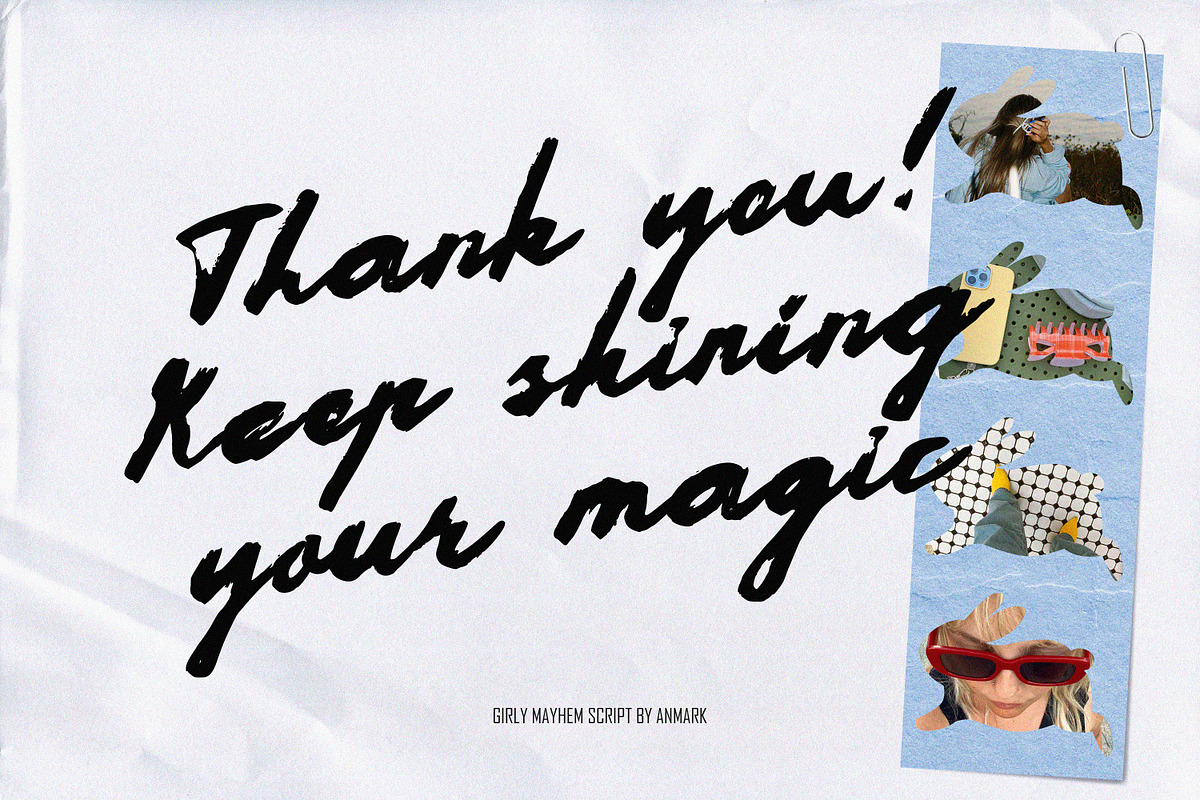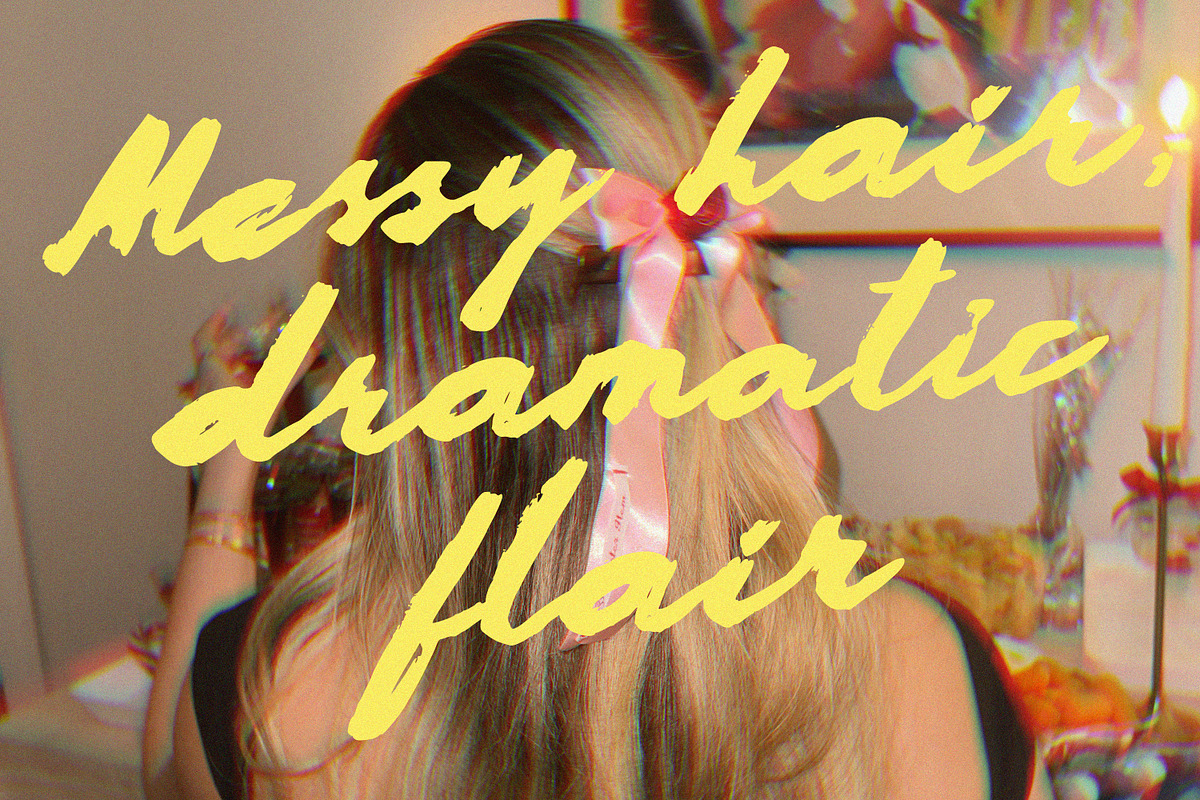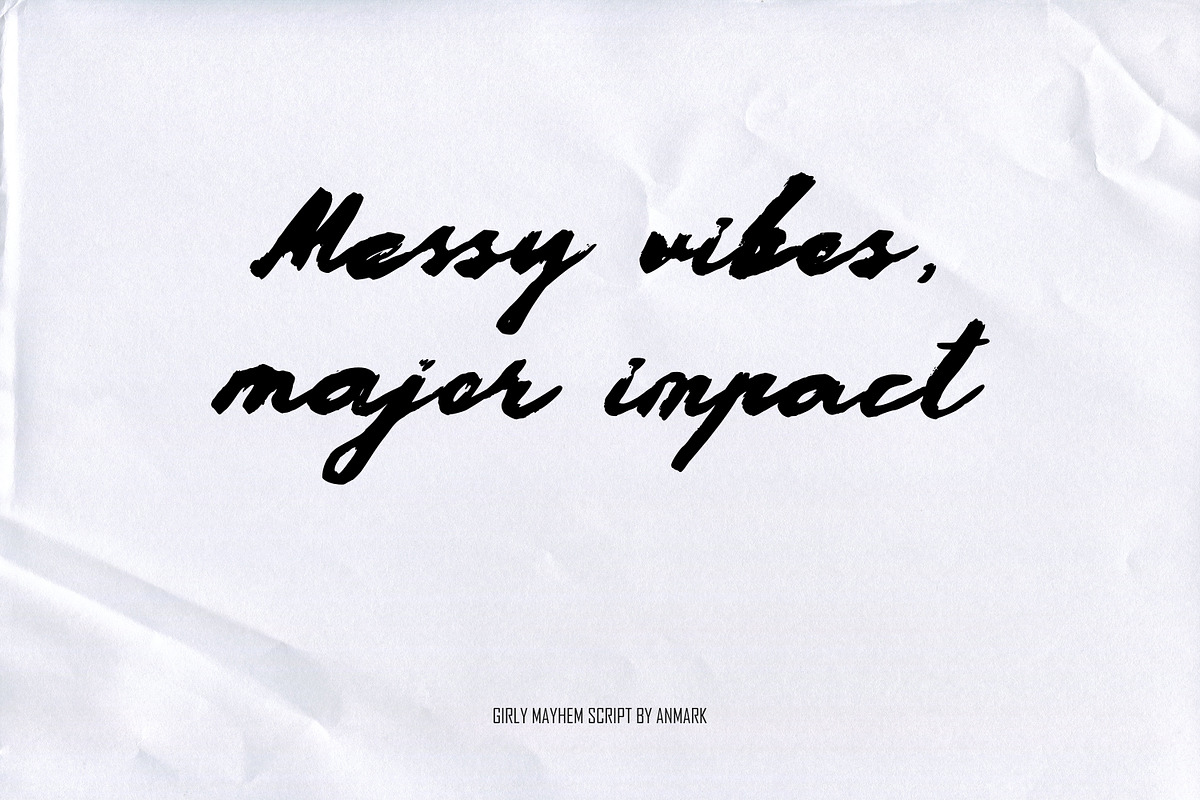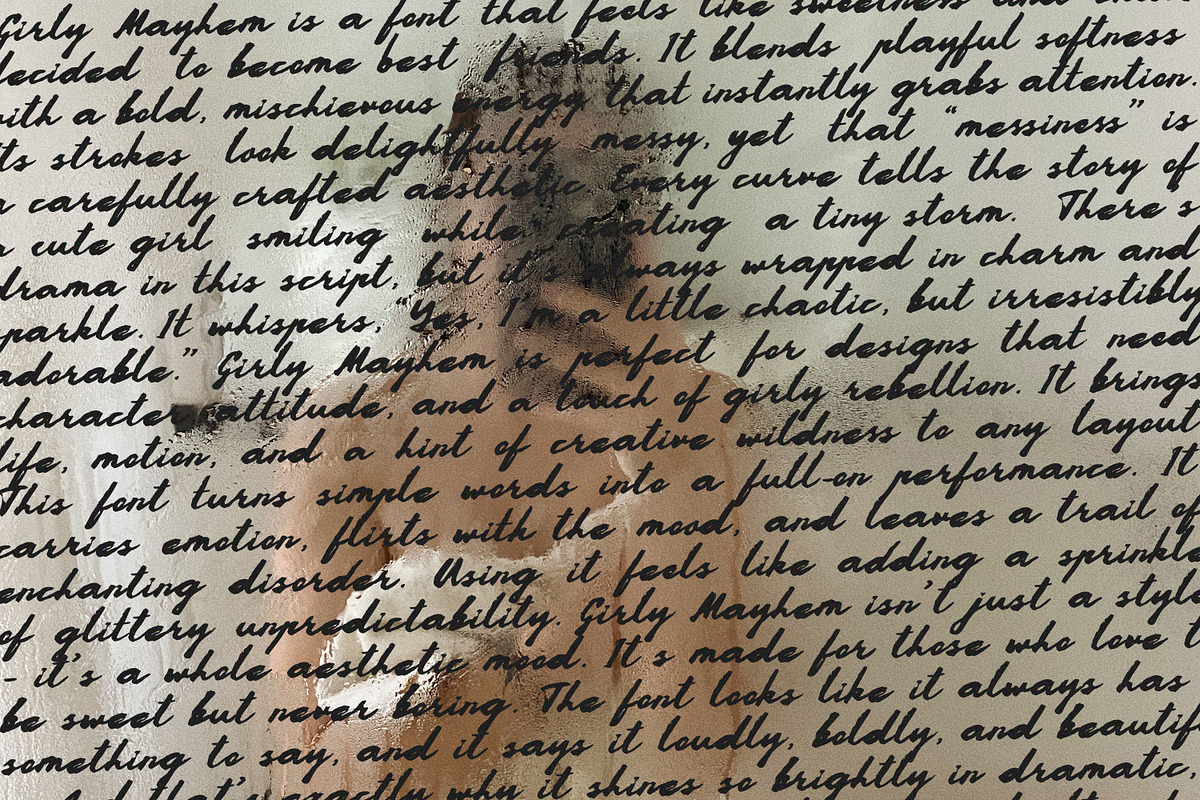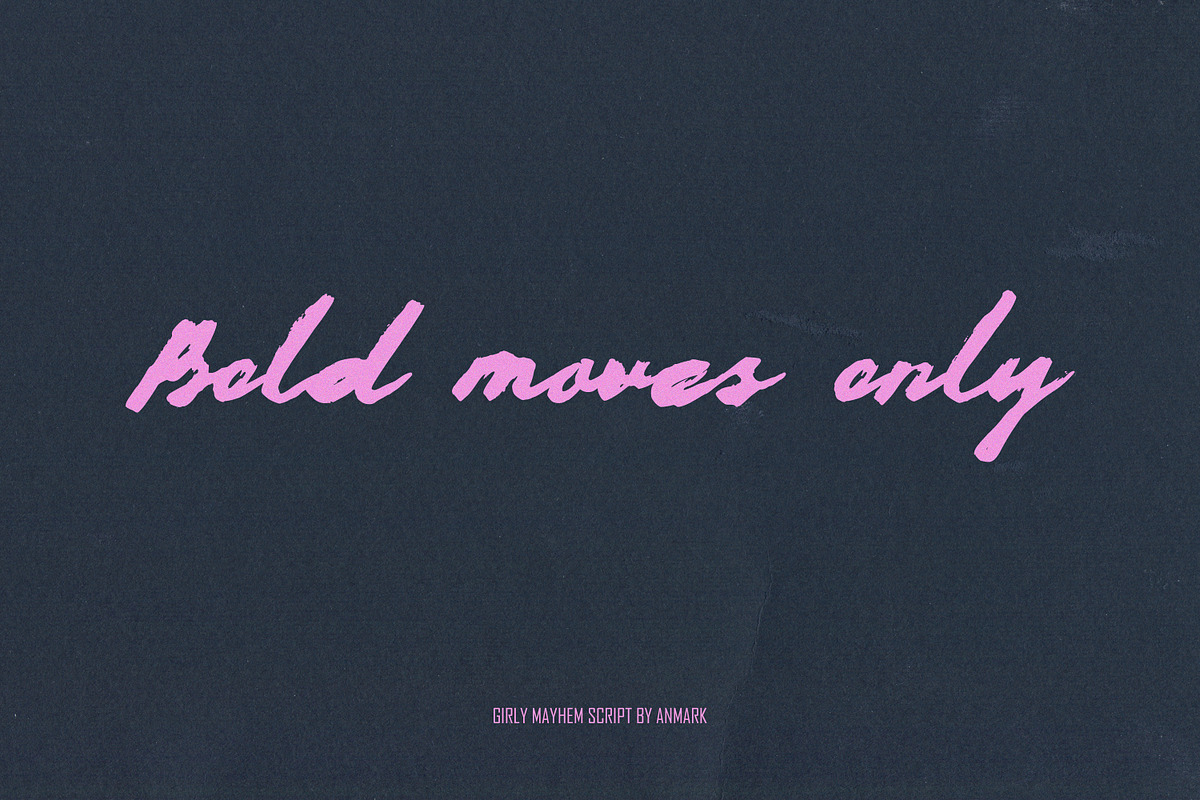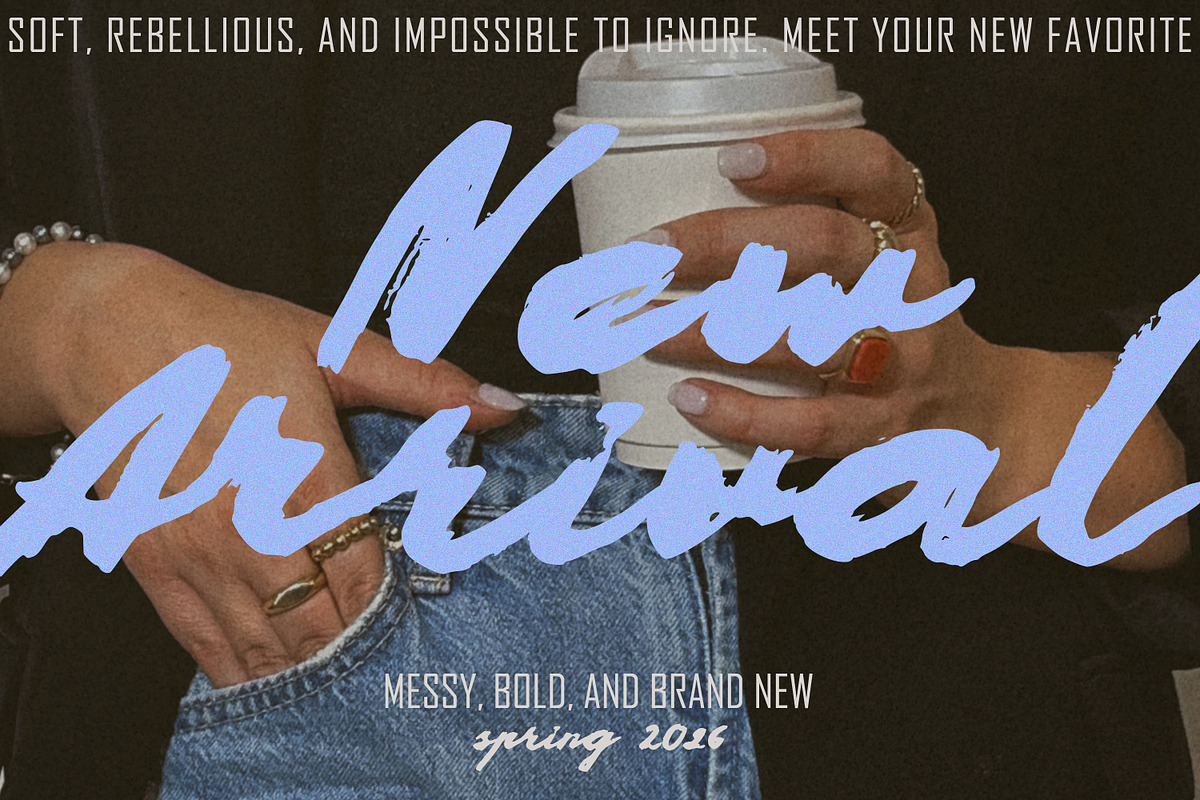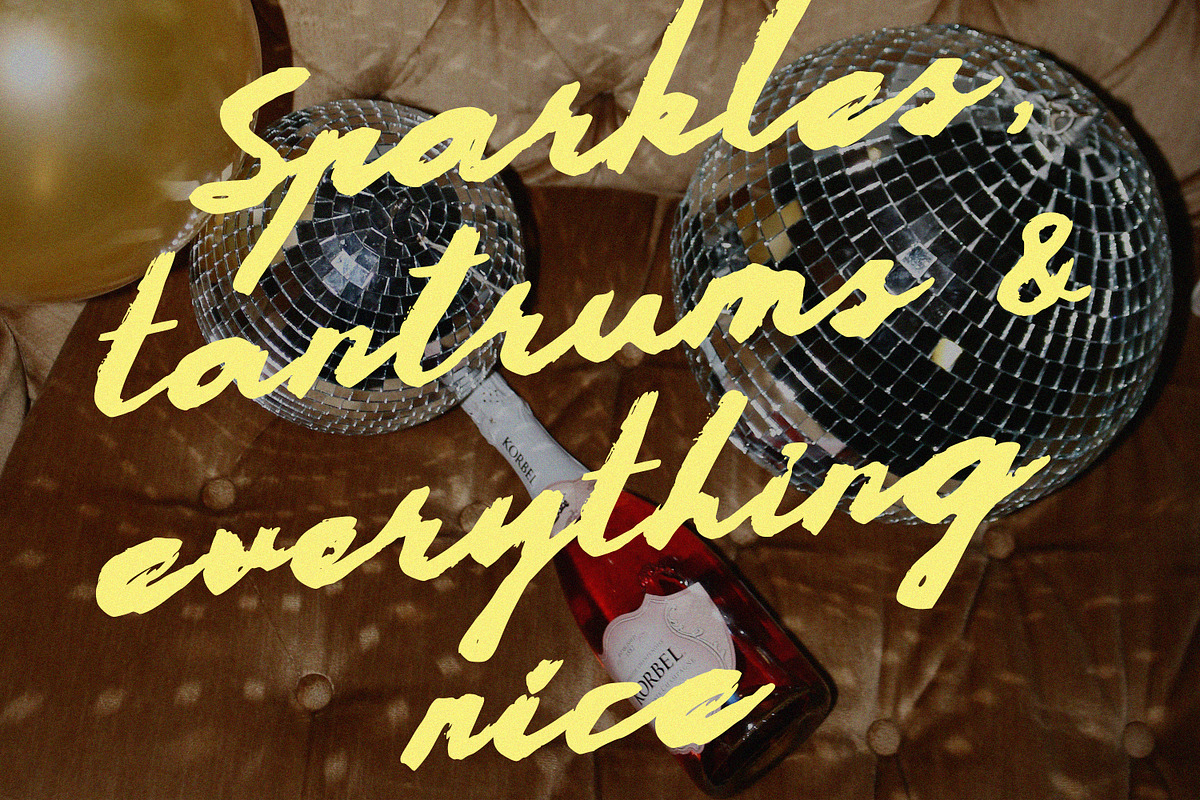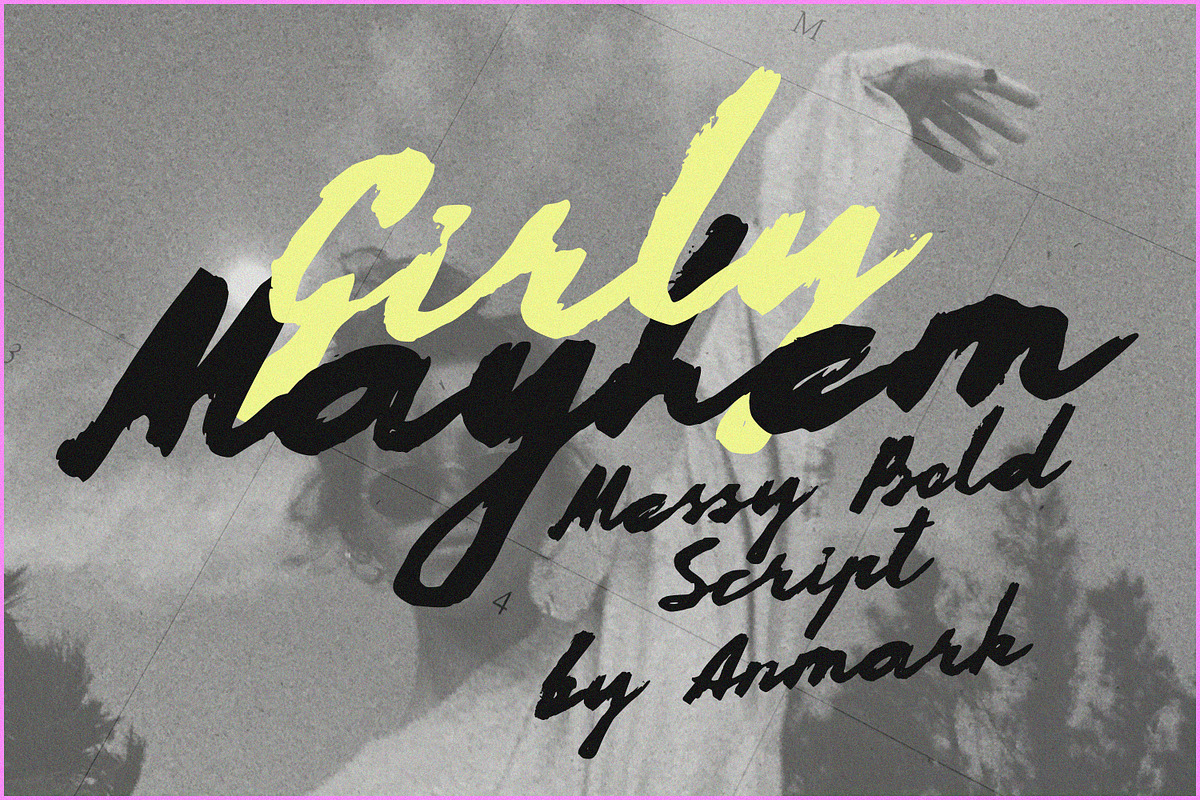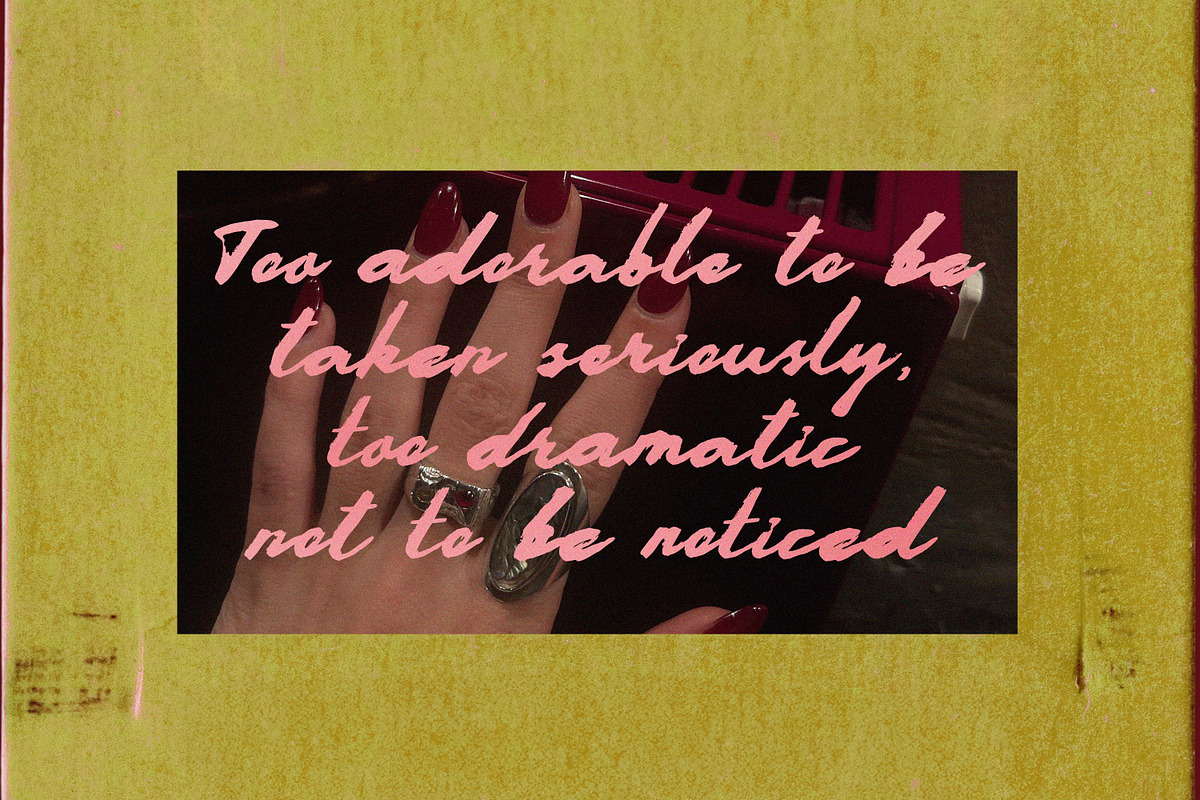
Girly Mayhem Messy Bold Script Font
Girly Mayhem Messy Bold Script is a playful, edgy, and bold handwritten font designed to bring fun and personality to your creative projects. This font includes full sets of uppercase, lowercase, numbers, and alternative characters, giving you maximum flexibility for custom lettering, logos, quotes, and more.
Perfect for social media graphics, wedding invitations, greeting cards, branding, posters, and DIY projects, Girly Mayhem lets you add a touch of messy, girly charm to any design. Its unique, hand-drawn style works beautifully on digital and print projects alike.
Key features:
Full uppercase and lowercase letters
Numbers included
Multiple alternative characters for creative lettering
Playful, messy, and bold handwritten style
Use cases & pairings:
Social media posts, stories, and graphics
Logos and branding for feminine or playful brands
Greeting cards, invitations, and stationery
Posters, prints, and DIY craft projects
Pairs well with clean sans-serif or minimal serif fonts for contrast.
Add a dash of chaos, a lot of personality, and endless girly charm to your next project with Girly Mayhem Messy Bold Script.